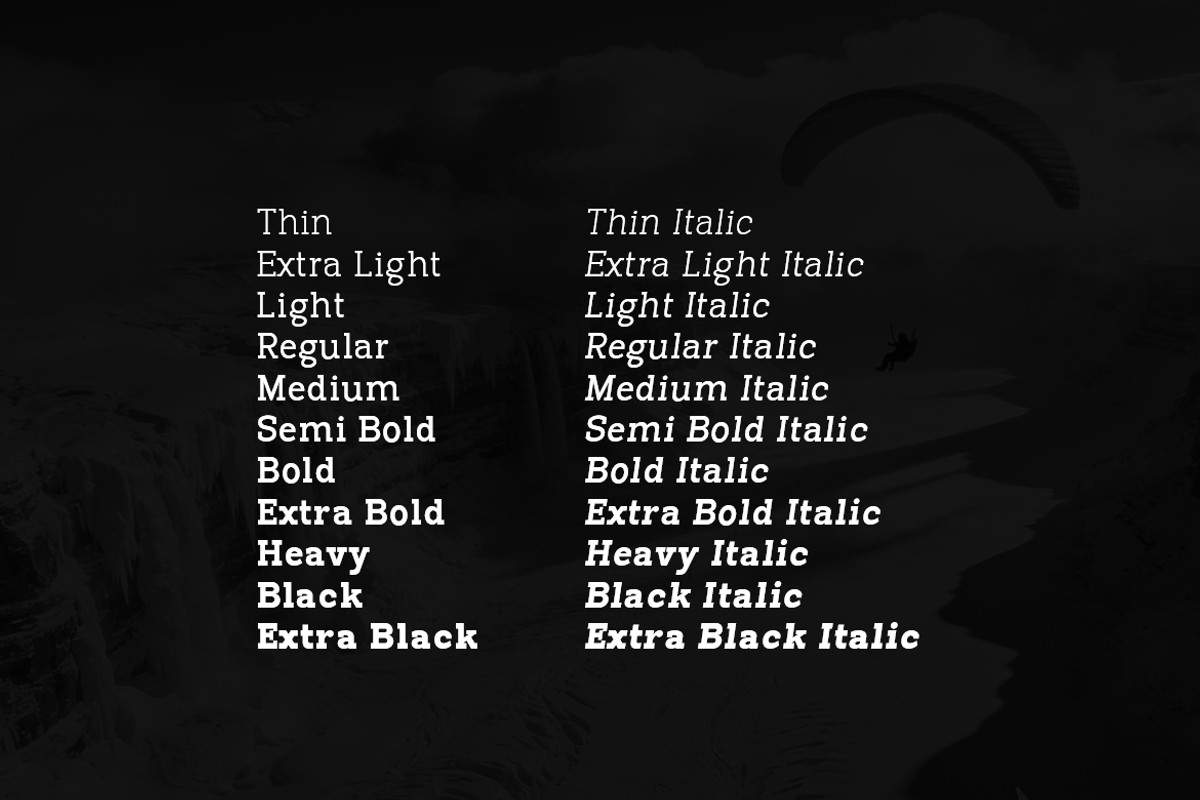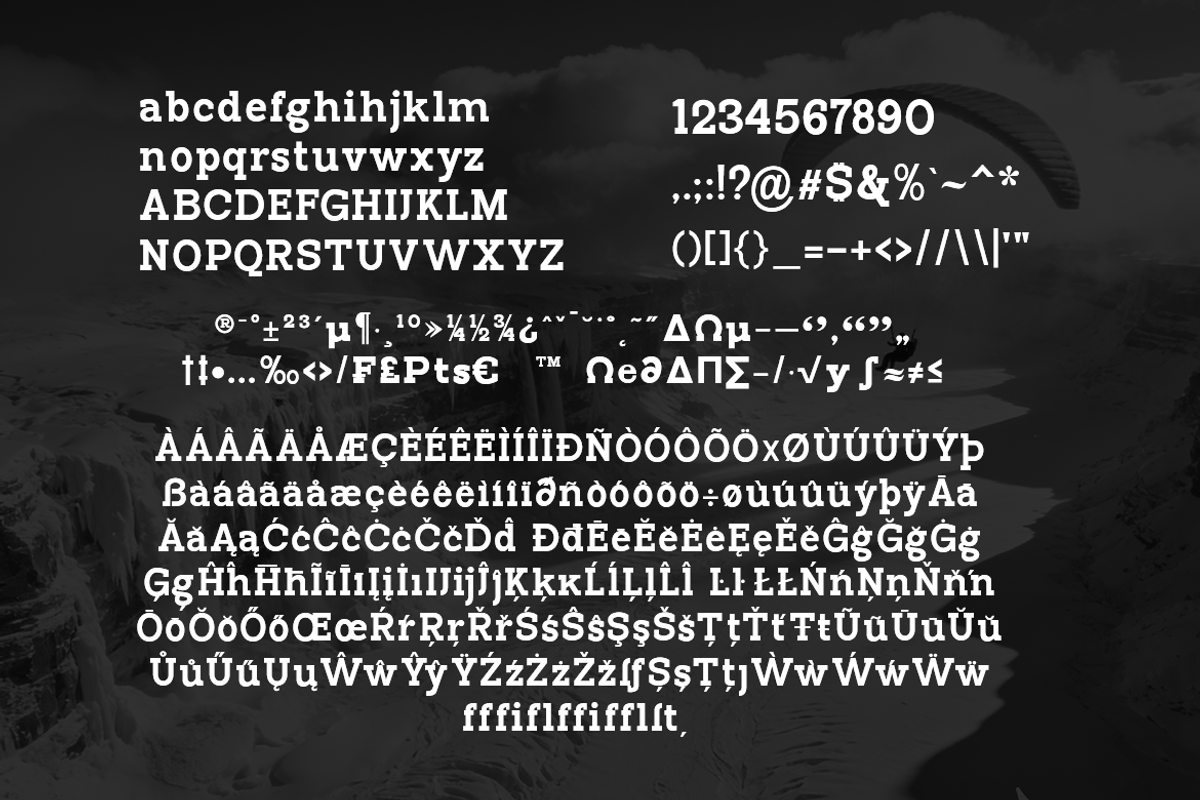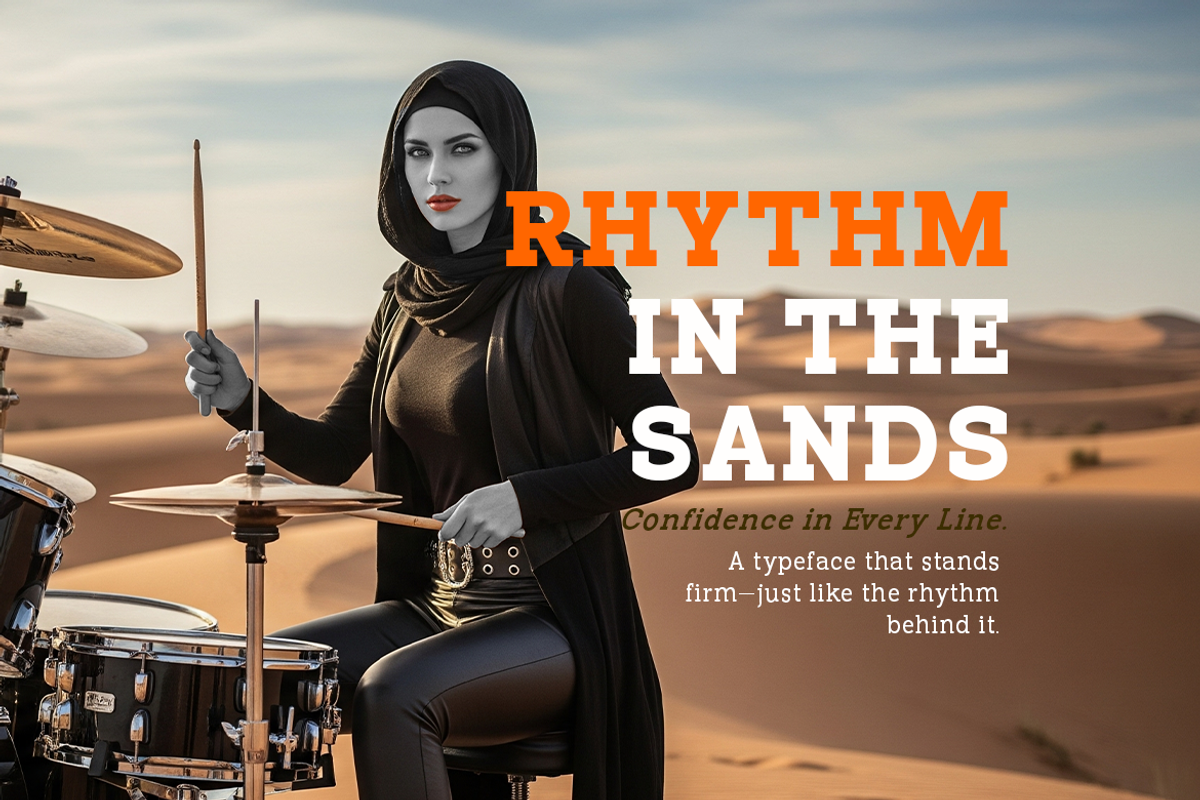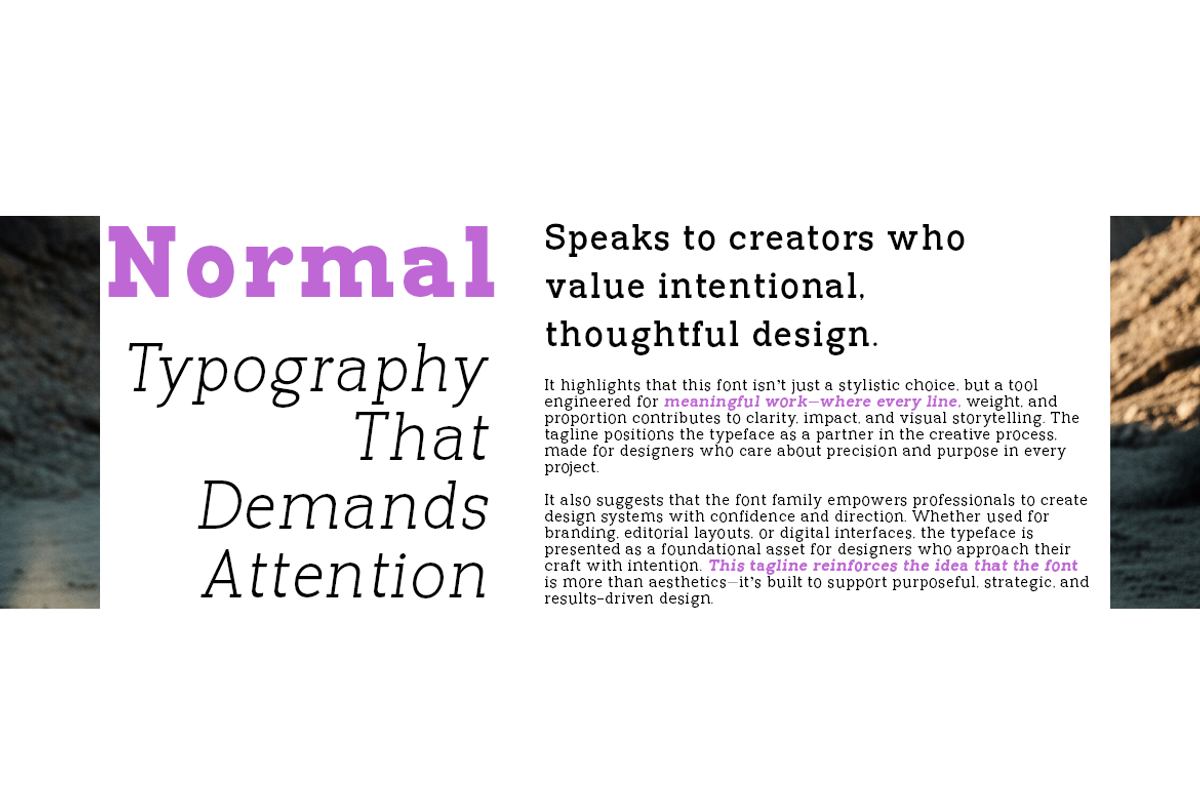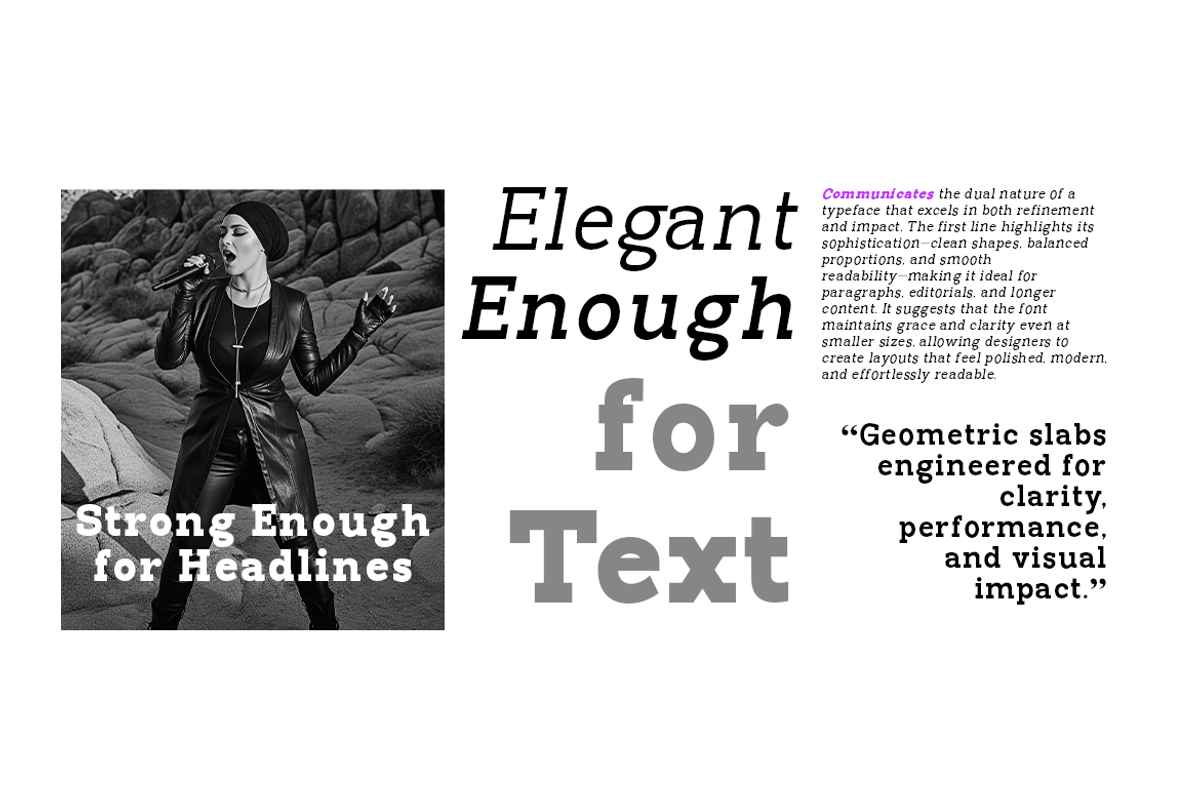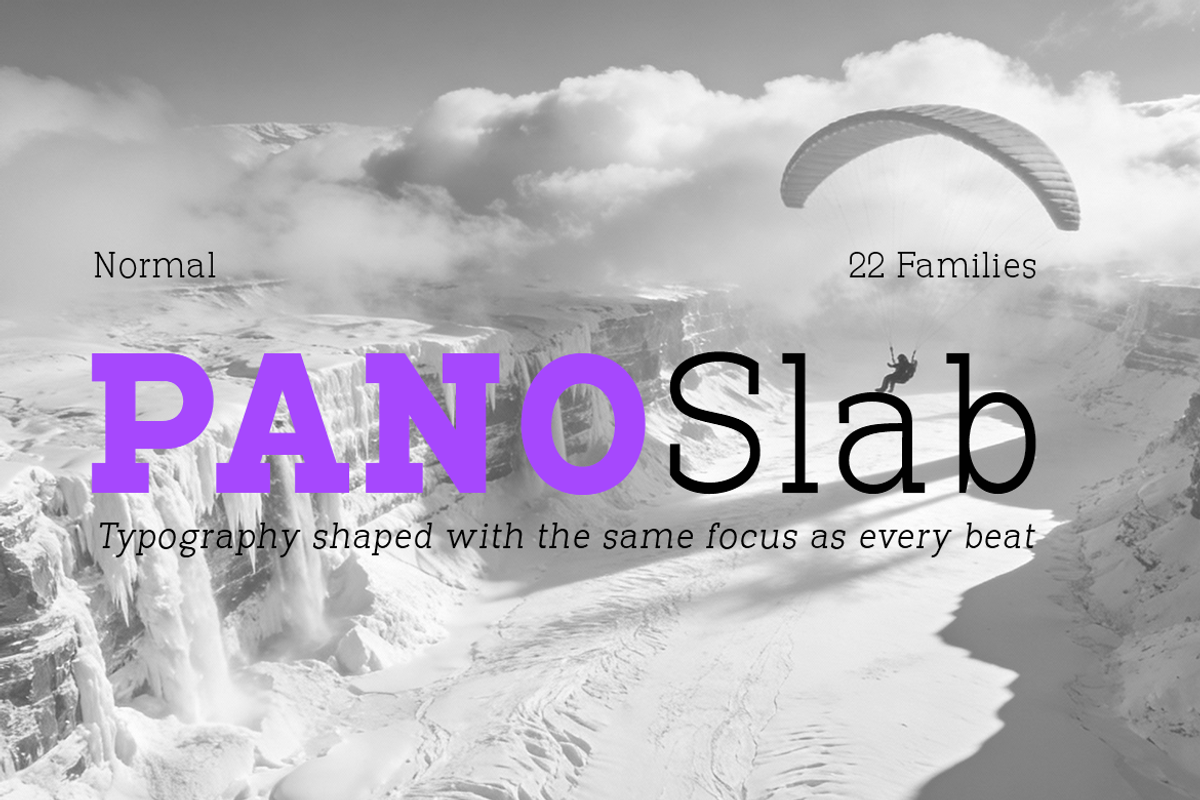
Pano Slab Normal
Pano Slab Normal (Total 22 Fonts)
Pano Slab Normal represents the core of the family, designed for maximum versatility across text and display use. Its balanced proportions, clean geometry, and solid slab serifs create a stable and professional appearance that performs equally well in long-form reading and bold typographic statements.
The Normal category includes 11 Upright fonts and 11 Italic fonts, spanning weights from Thin to Extra Black. This wide weight range allows designers to build clear hierarchy and consistent visual systems within a single type family. Pano Slab Normal is ideal for branding, editorial content, digital interfaces, and any project that demands both elegance and strength.